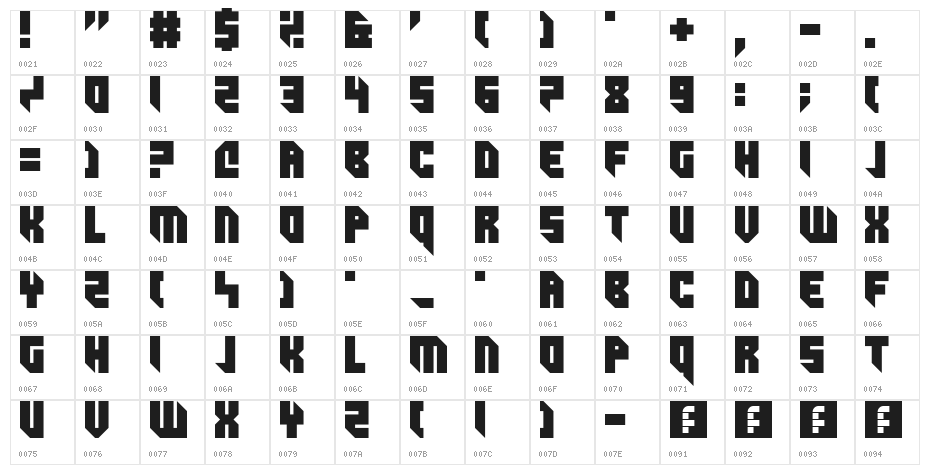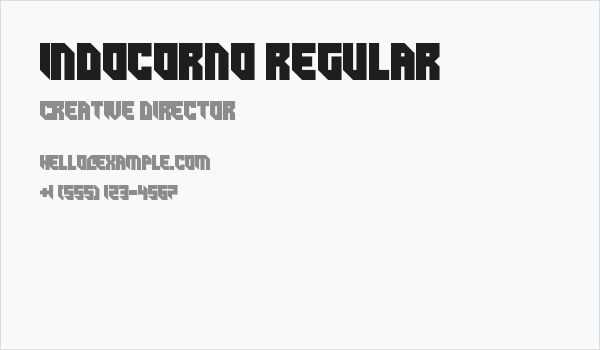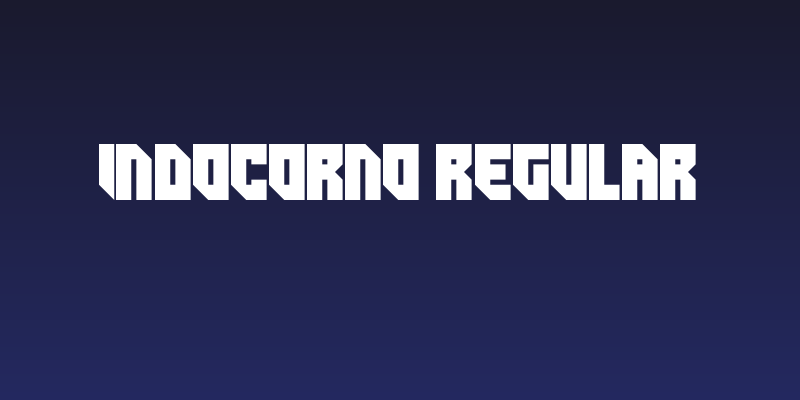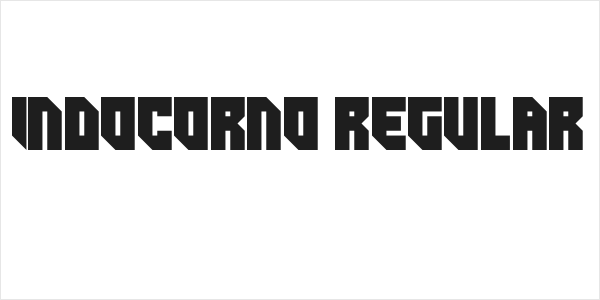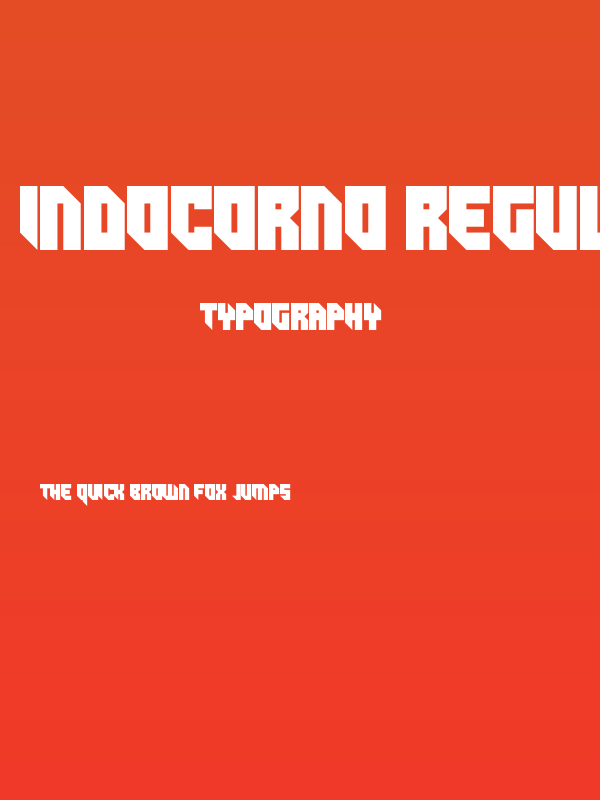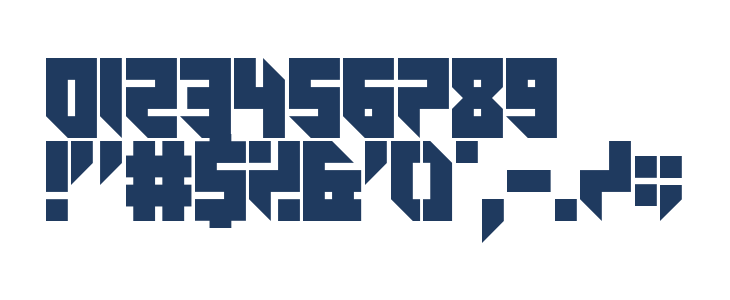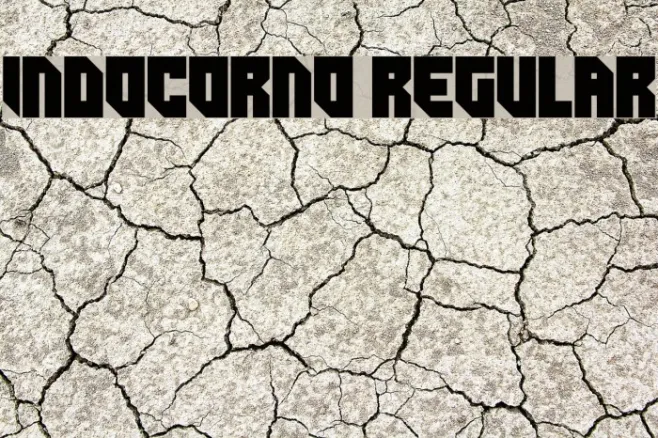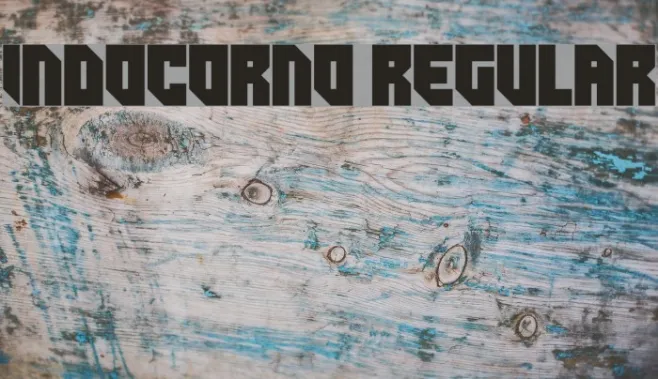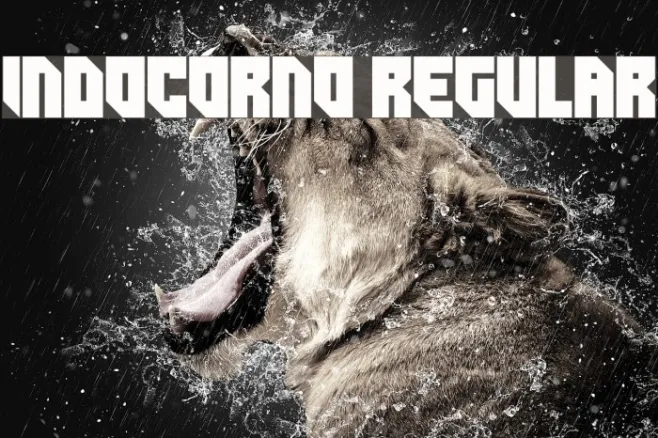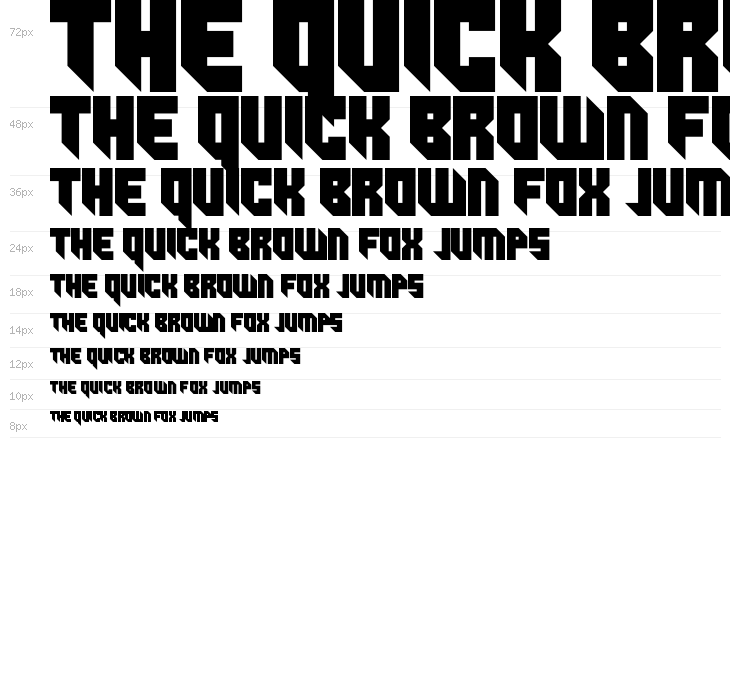
Indocorno Regular Font
Indocorno Regular Description
This font features a bold and geometric design, characterized by sharp angles and a blocky structure. The uppercase and lowercase letters maintain a consistent width, giving the font a uniform appearance. The numbers and special characters follow the same angular style, creating a cohesive look across all elements. The font's distinct style makes it stand out, with each character exhibiting a unique, edgy form. The overall design is modern and eye-catching, suitable for projects that require a strong visual impact.
| Proposed Projects | Ideal for posters, logos, and branding materials that need a strong, impactful visual presence. |